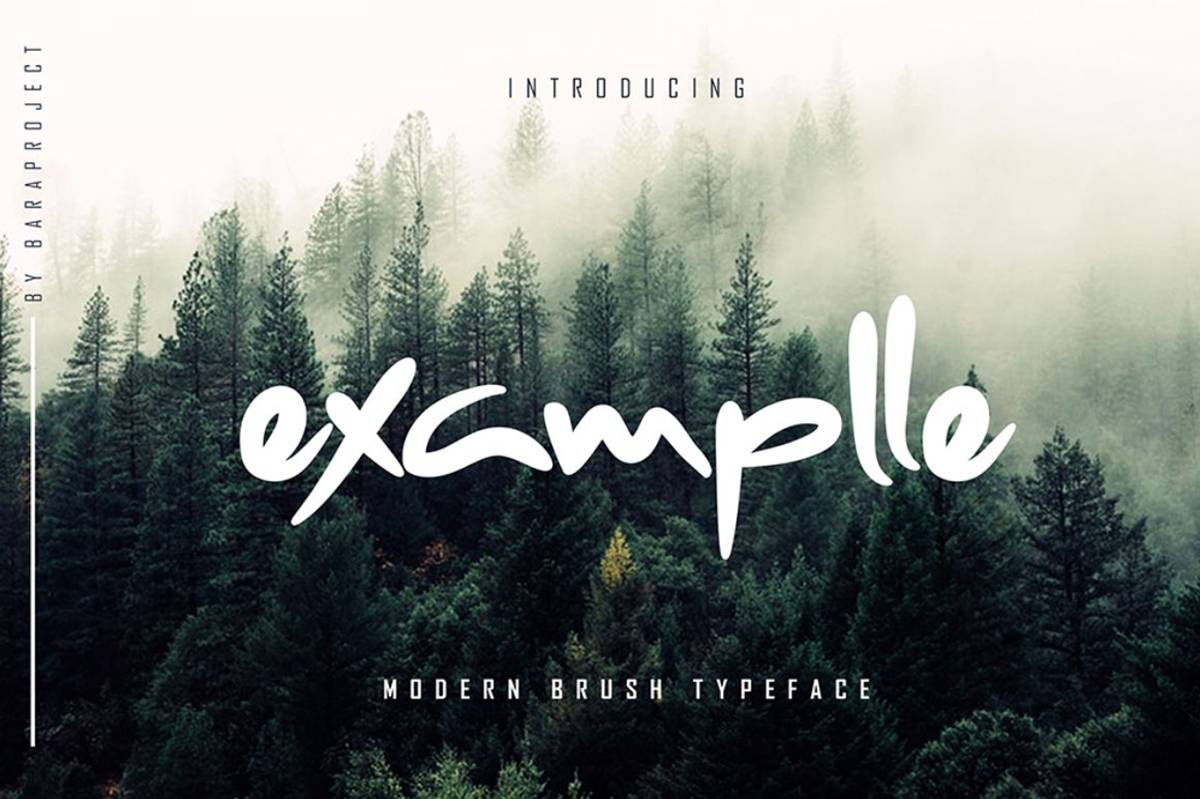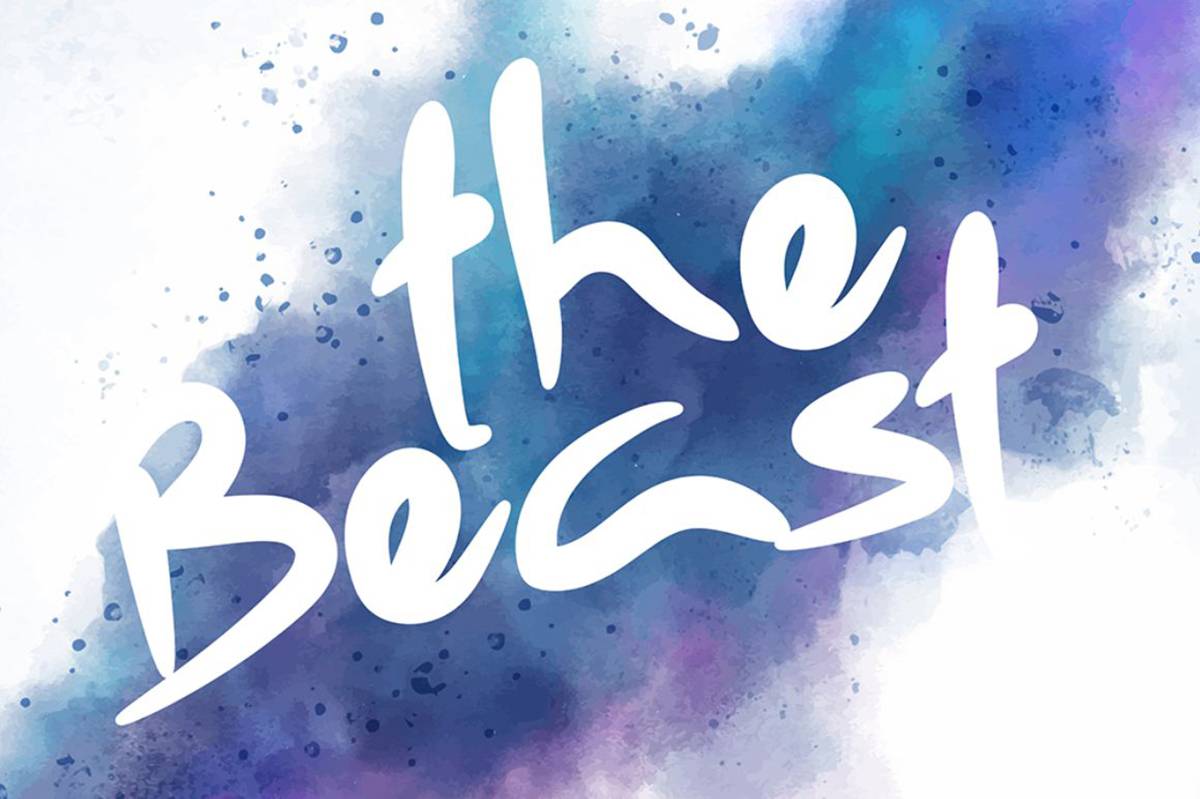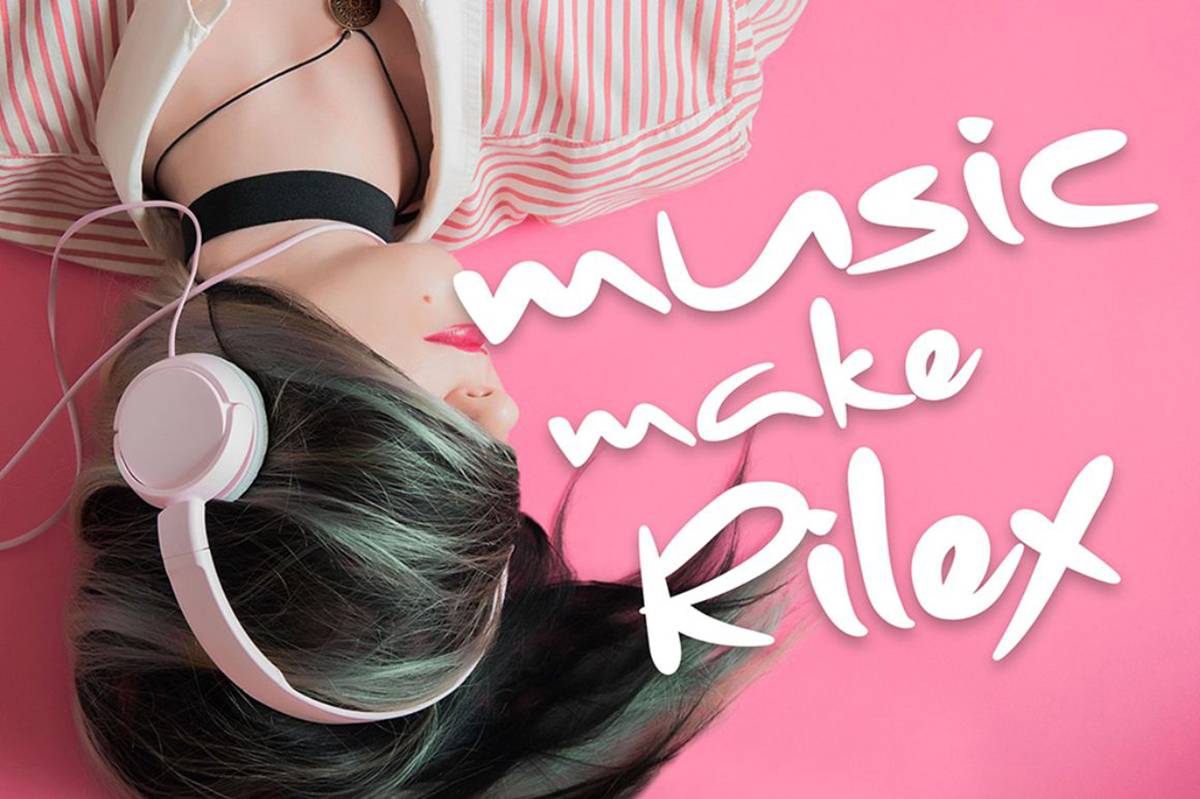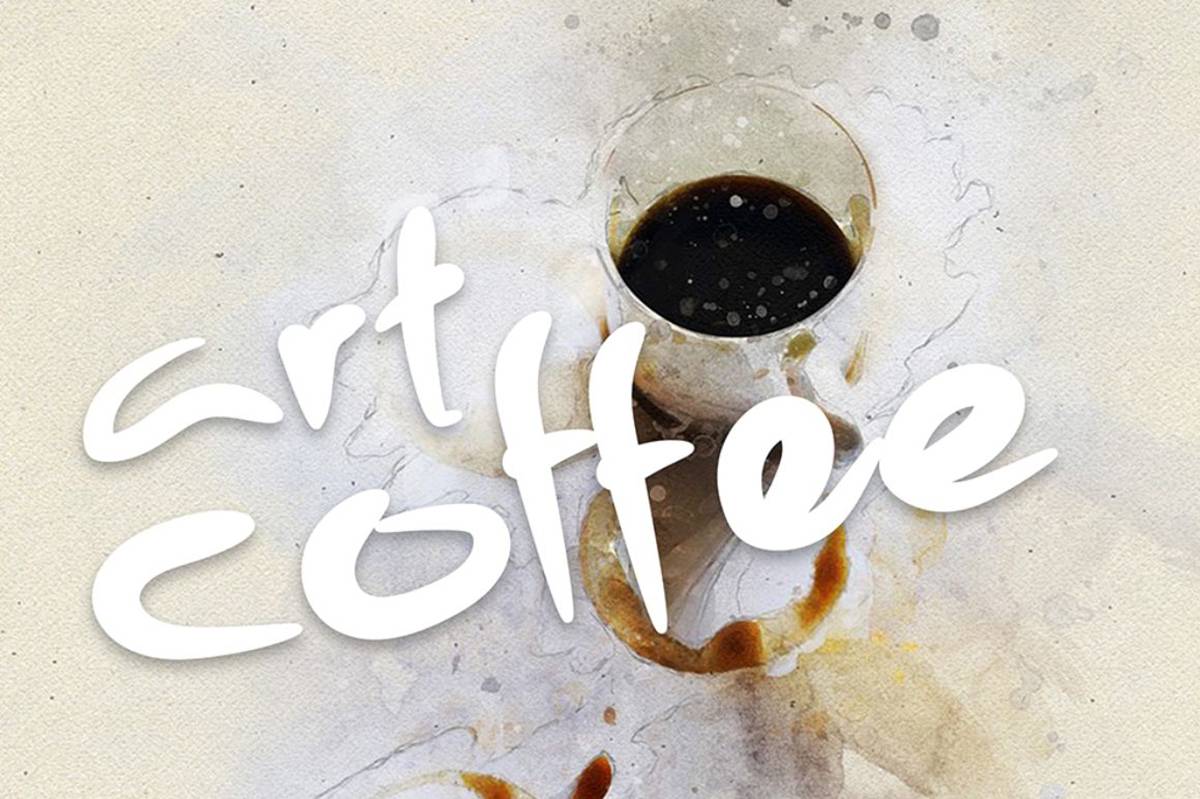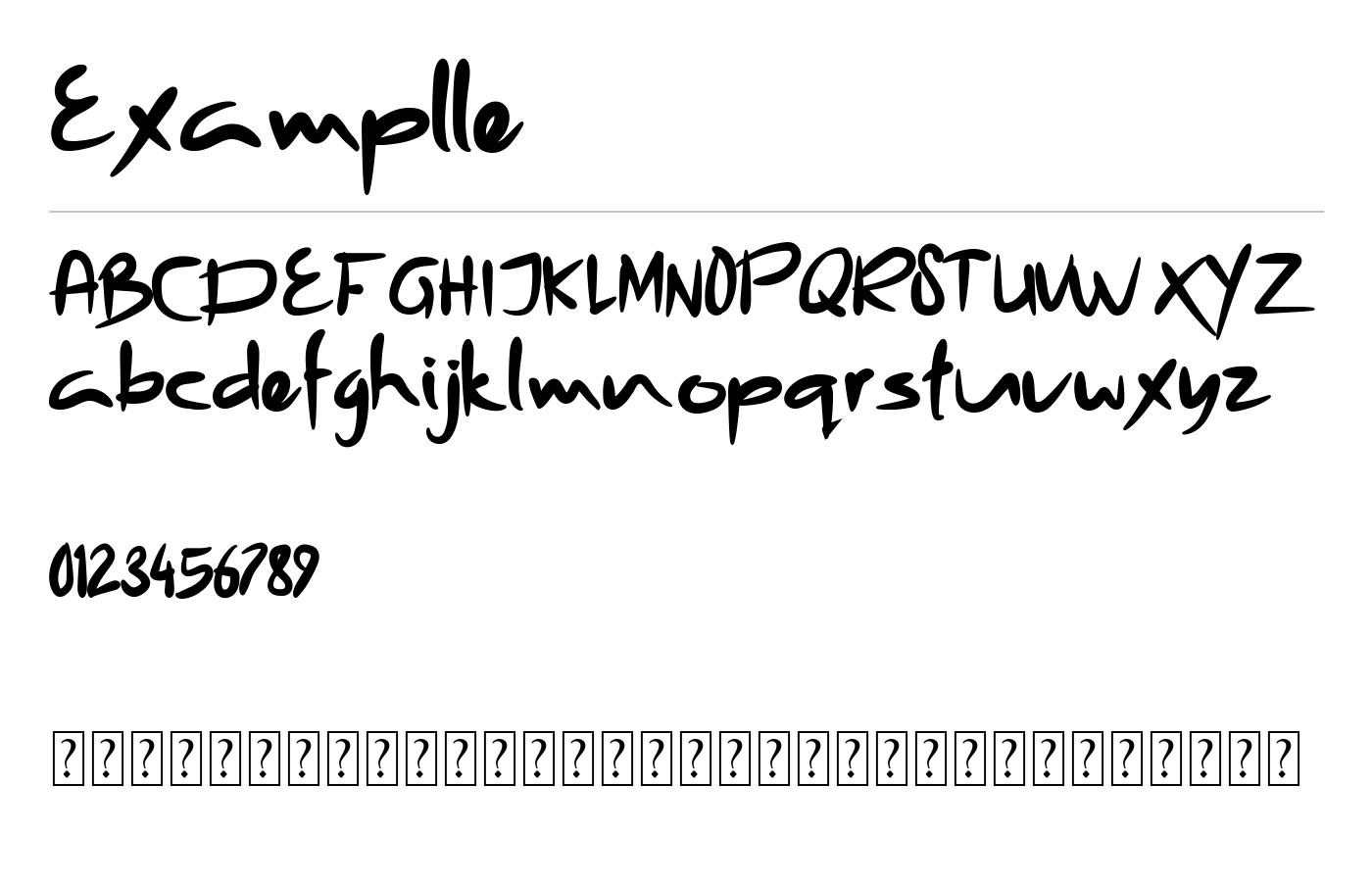
Examplle Font is a lively, handwritten script with a casual and friendly feel. Its playful, slightly uneven strokes give it a personal, informal touch, making it ideal for creative, fun, and approachable designs. This font works best for branding, invitations, social media graphics, and any project seeking a warm, human connection.
Examplle Font